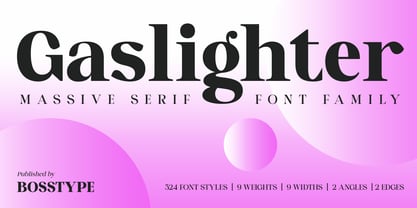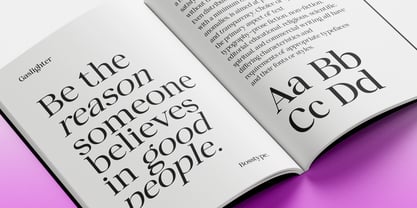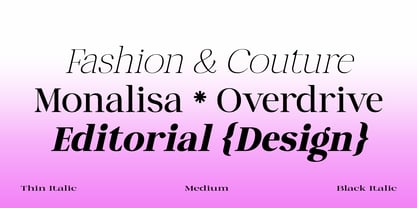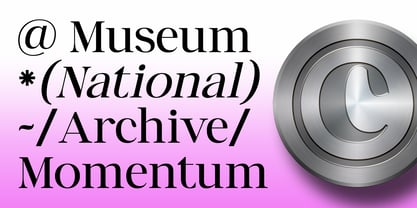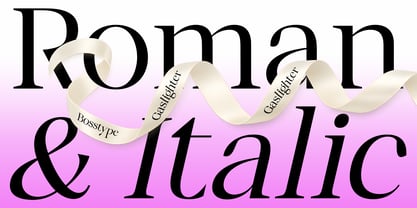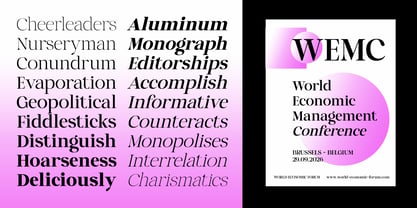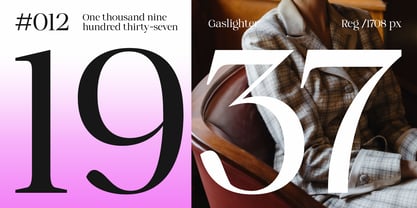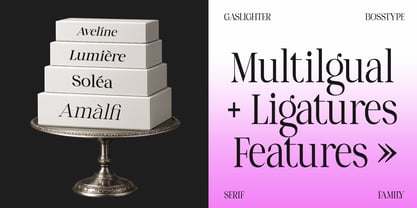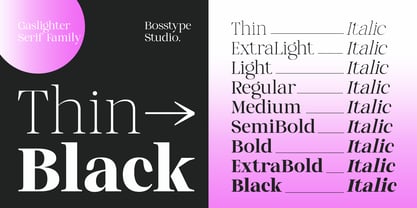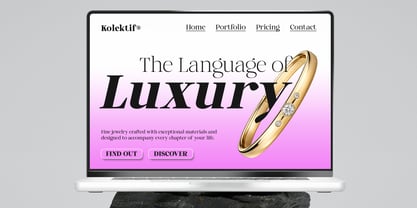
Gaslighter
La familia tipográfica Gaslighter fue diseñada por Mu Fazzal y publicada por Bosstypestudio. Gaslighter contiene 111 estilos. Más información sobre esta familia
Gaslighter is a massive display serif typeface family designed to make a bold and unforgettable statement. With its powerful proportions, dramatic high-contrast strokes, elegant curves, and distinctive serif details, Gaslighter brings together classic editorial sophistication with a contemporary fashion-forward attitude.
Gaslighter is ideal for fashion branding, luxury identities, editorial design, magazine covers, posters, advertising, packaging, logos, headlines, social media graphics, and sophisticated display typography. Its dramatic character works especially well when typography needs to become the main visual element.
Whether used at large display sizes or combined across different weights and widths, Gaslighter delivers a strong, luxurious, and distinctive presence that adds personality to every design.